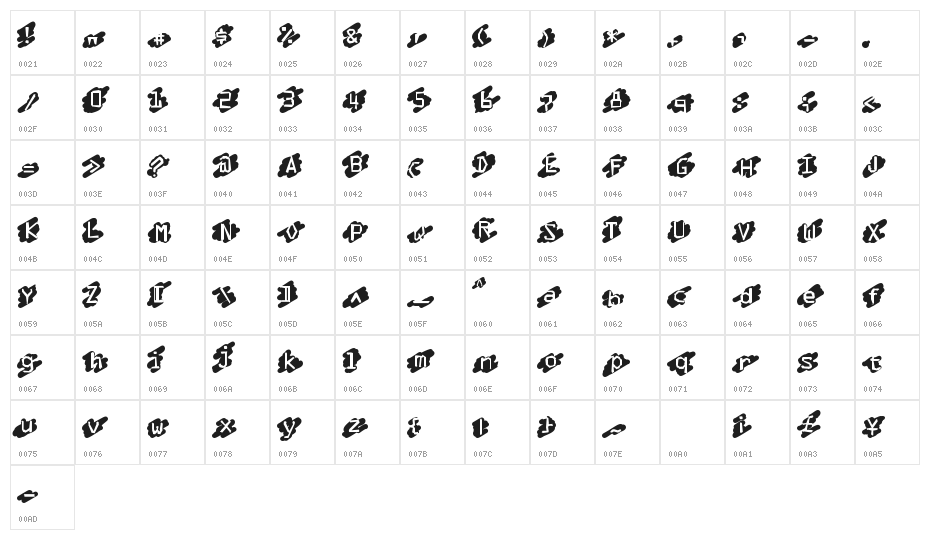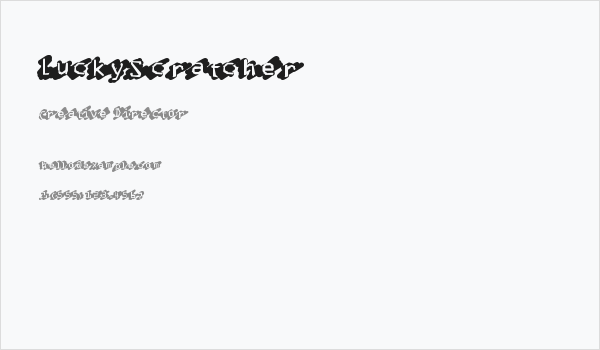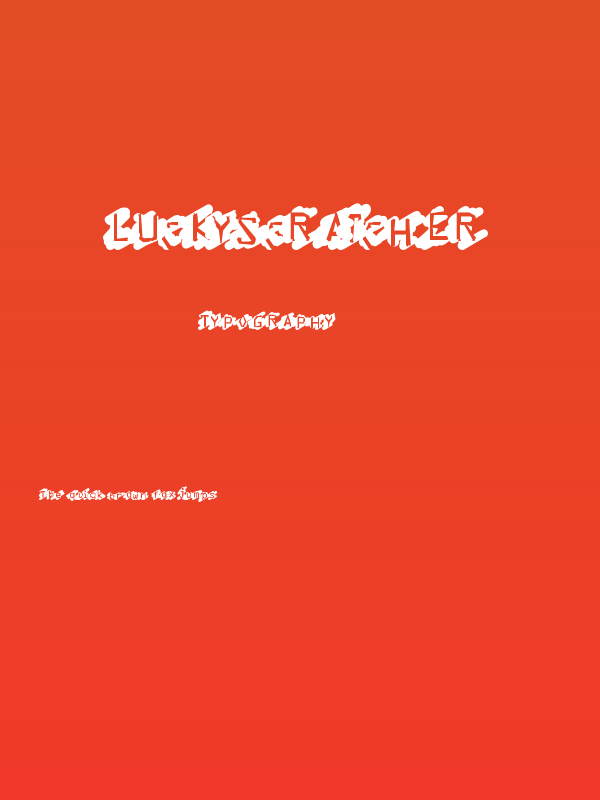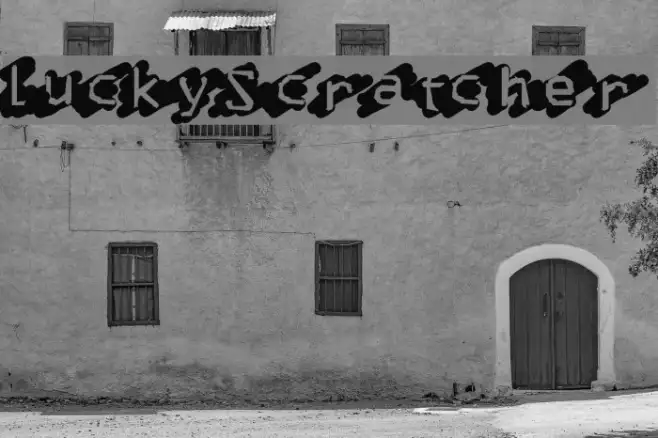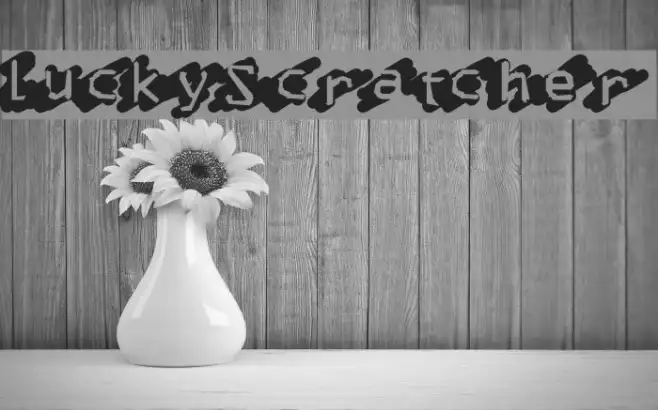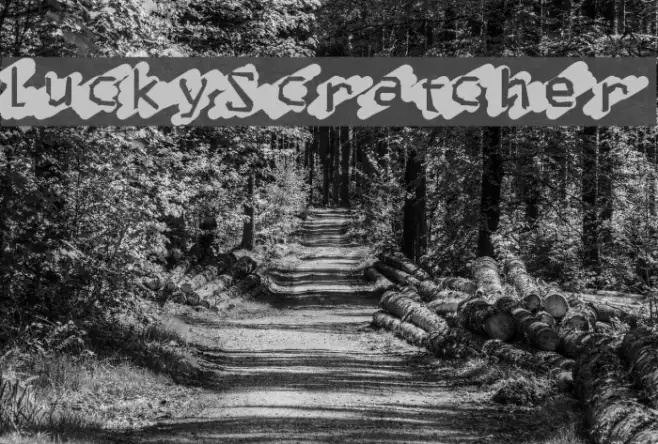
LuckyScratcher Font
LuckyScratcher Description
This font features a bold and playful style with a distinct shadow effect that gives it a three-dimensional appearance. The characters are uppercase and lowercase letters, numbers, and a variety of special symbols. Each character is designed with a thick, uneven stroke that adds to its whimsical and dynamic look. The shadow effect is consistent across all characters, enhancing the font's depth and making it stand out. This font is particularly eye-catching and would be suitable for projects that require a fun and engaging visual element.
| Proposed Projects | Ideal for children's book covers, playful branding, event posters, and creative social media graphics. |